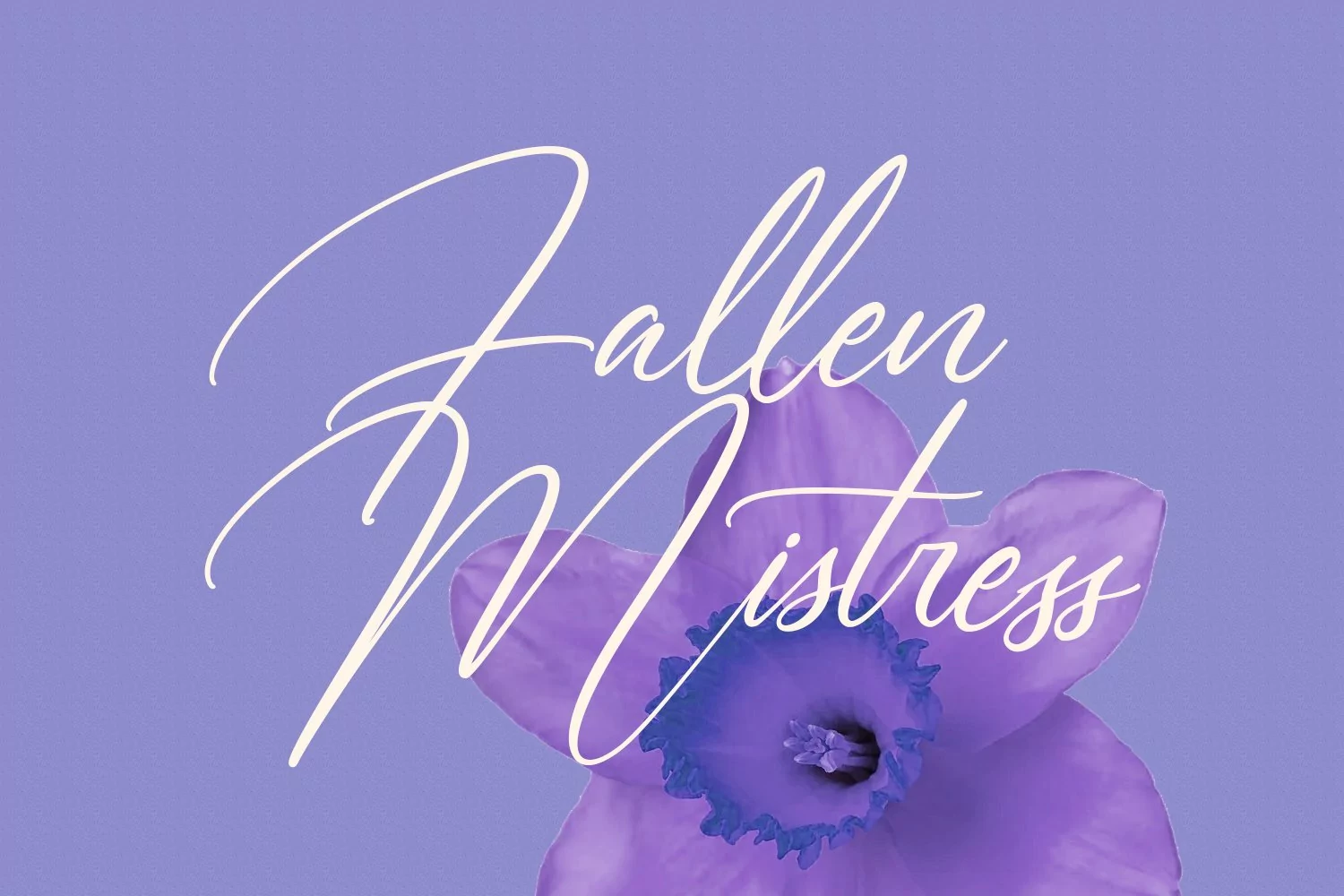
Grattica Blues is a modern beauty signature script font. With high contrast stroke, fun character with a bit of ligatures and stylistic alternates. To give you an extra creative work. Grattica Blues font support multilingual more than 100+ language. This font is good for logo design, Social media, Movie Titles, Books Titles, a short text even a long text letter and good for your secondary text font with sans or serif. Make a stunning work with Grattica Blues font.
Grattica Blues